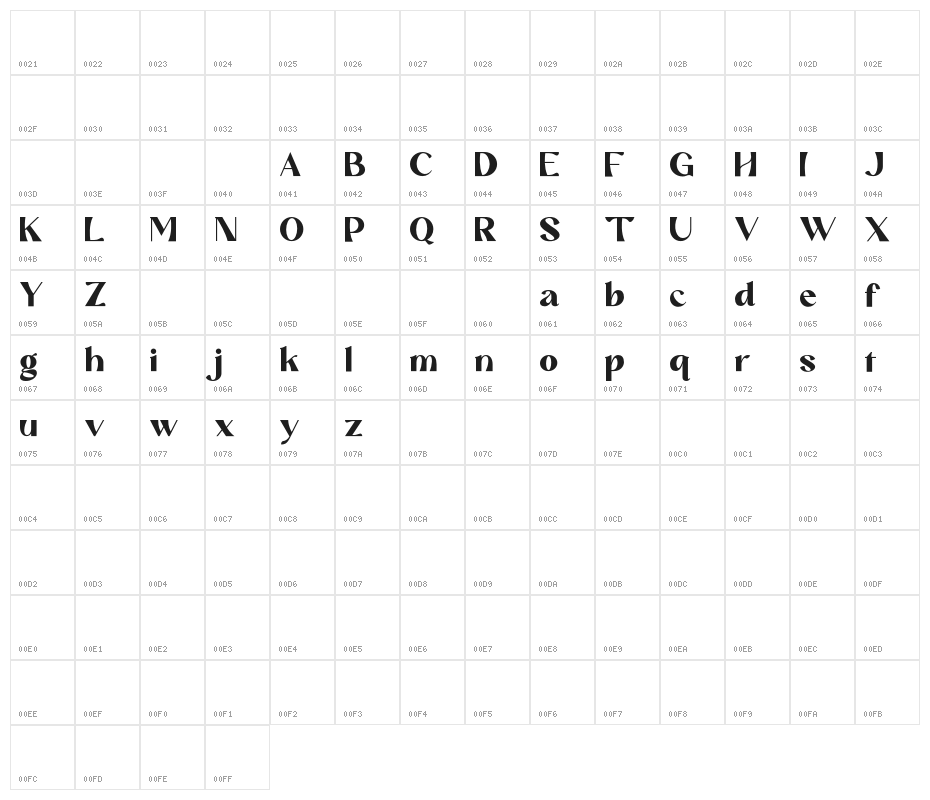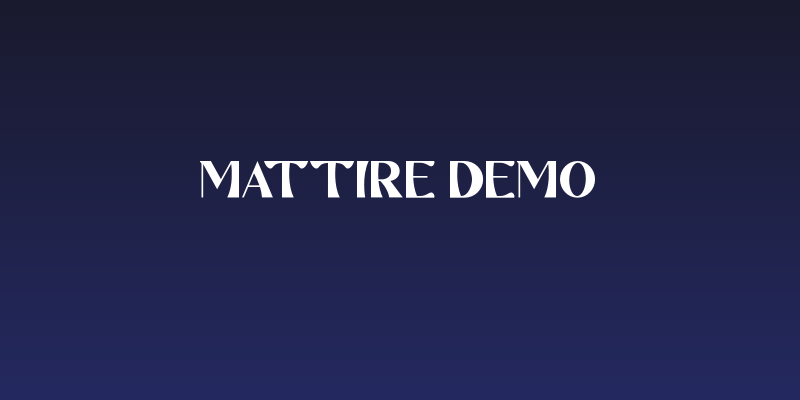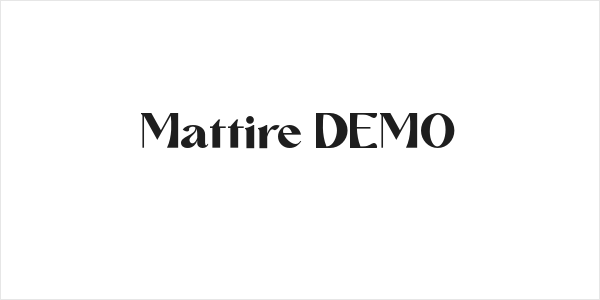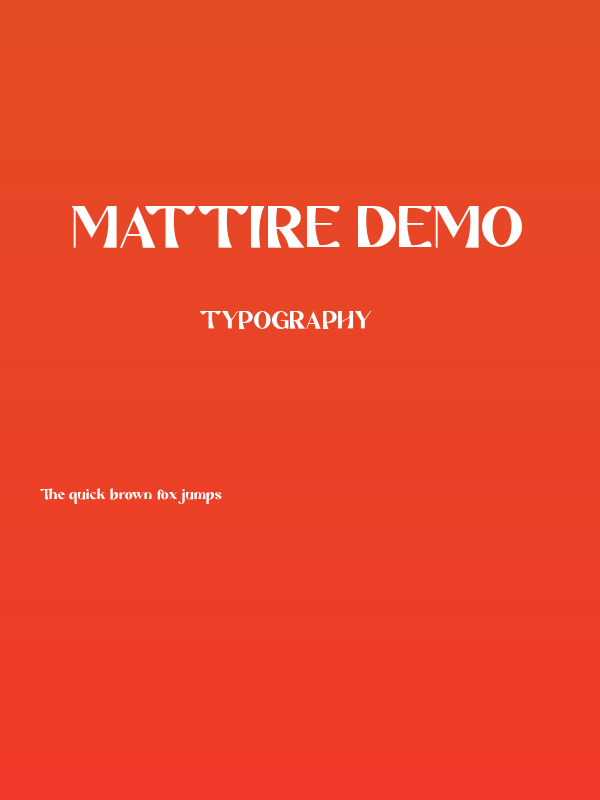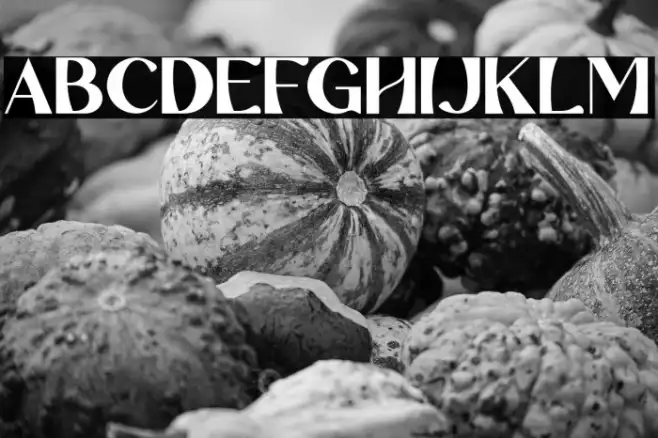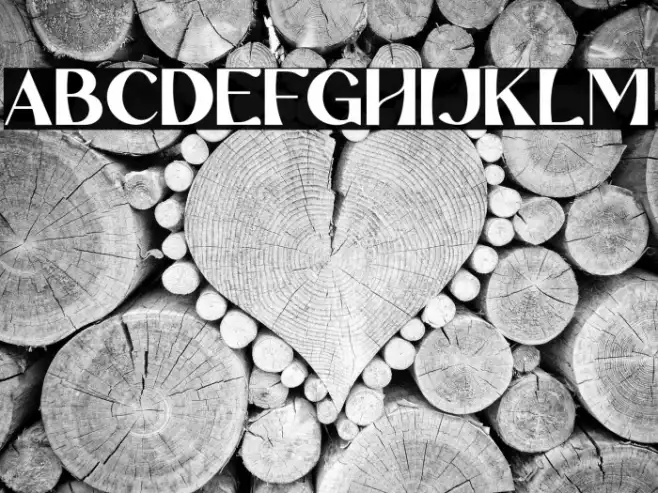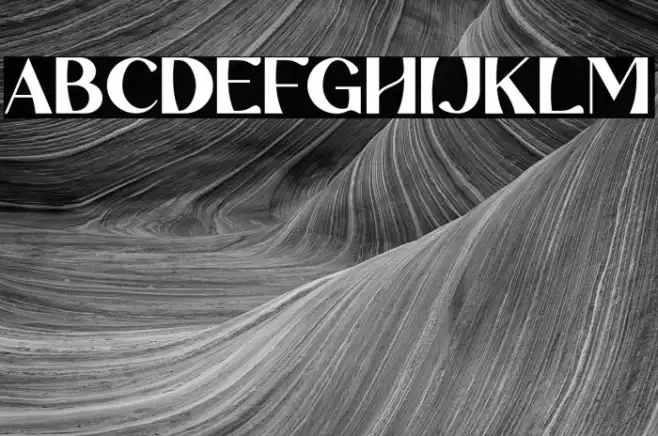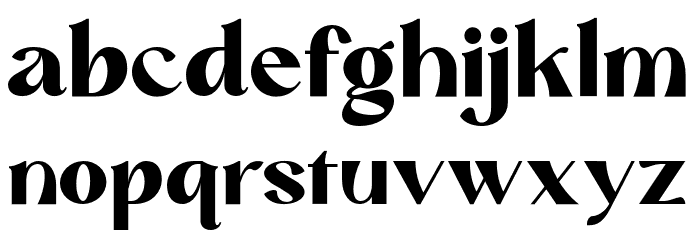
Mattire DEMO Font
Mattire DEMO Description
This font features a unique blend of modern and classic styles, characterized by its bold and dramatic serifs. The uppercase letters exhibit a striking contrast between thick and thin strokes, giving them a dynamic and elegant appearance. The lowercase letters maintain a consistent weight, providing a harmonious flow across text. The font's distinctive curves and sharp angles make it stand out, while its balanced proportions ensure readability. Its overall aesthetic is both sophisticated and eye-catching, making it suitable for a variety of design applications.
| Proposed Projects | Ideal for branding, editorial design, posters, and luxury packaging. |